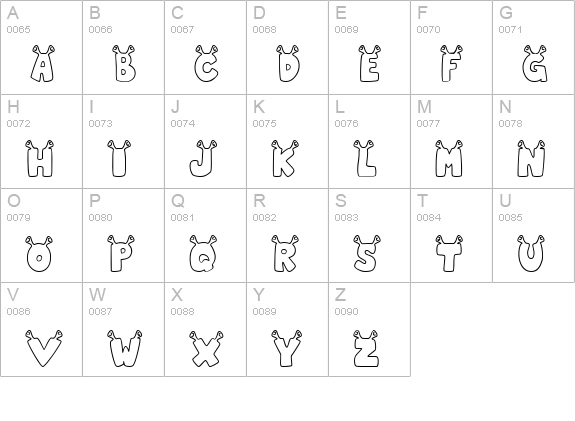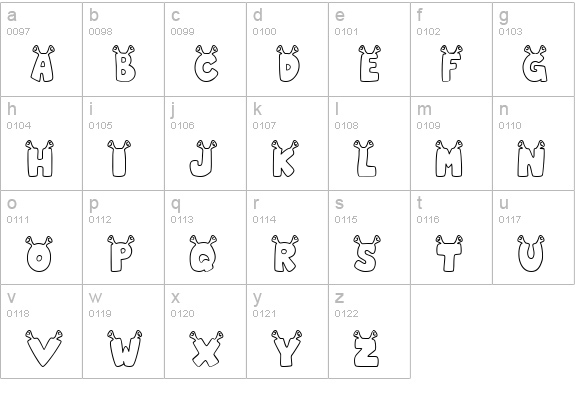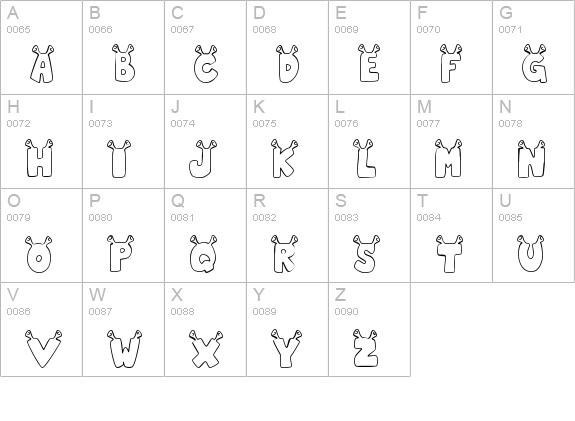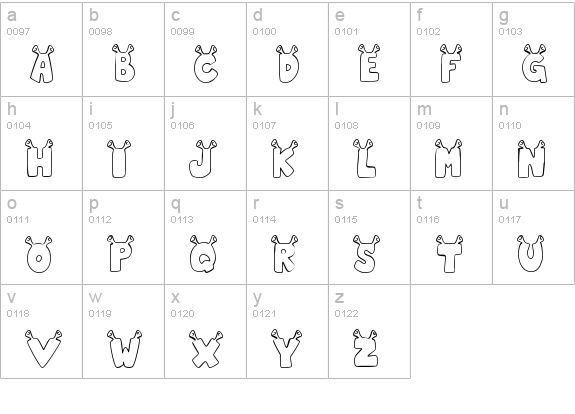
Introducing the enchanting and whimsical JLR Star Shrek font, a delightful typeface that will transport you to a world of magical storytelling. This font captures the essence of the beloved animated film franchise, combining elements of fantasy and adventure with a touch of humor. JLR Star Shrek font is a perfect choice for anyone who wants to bring a touch of enchantment to their designs. Whether you are creating invitations for a fairytale-themed party, designing a poster for a children's event, or adding a playful element to your social media graphics, this font will surely captivate your audience. What makes JLR Star Shrek font even more remarkable is that it is available for free! Yes, you read that right. This incredible font can be freely downloaded at FontsMarket.com, allowing you to bring a touch of magic to your designs without spending a dime. The JLR Star Shrek font features charming, irregular letterforms that evoke a sense of whimsy and playfulness. Each character is carefully crafted, with unique details that add to its overall charm. From the curvaceous loops of the lowercase letters to the quirky serifs of the uppercase characters, every aspect of this font is designed to captivate and delight. With a wide range of characters, including uppercase letters, lowercase letters, numbers, and punctuation marks, JLR Star Shrek font offers endless possibilities for creative expression. Whether you want to create eye-catching headlines, add a touch of magic to your branding, or simply infuse your designs with a sense of wonder, this font has got you covered. So, what are you waiting for? Embrace the magic of JLR Star Shrek font and let your imagination run wild. Download it for free at FontsMarket.com and embark on a fantastic journey of creativity and storytelling.